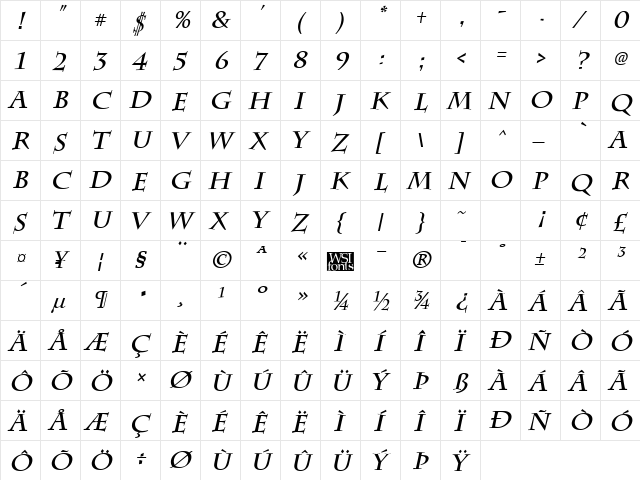
Chattsworth Bold Italic
Design Context for Chattsworth Typeface
Chattsworth offers clean, dependable letterforms without strong stylistic allegiance, making it a practical choice for designers who need flexibility. The slanted form adds forward momentum and visual energy. Its bold stroke weight gives it real presence on the page.
Pro Tip: Try Chattsworth for annotation and caption copy alongside an upright companion — the contrast in angle creates a dynamic but ordered typographic system.